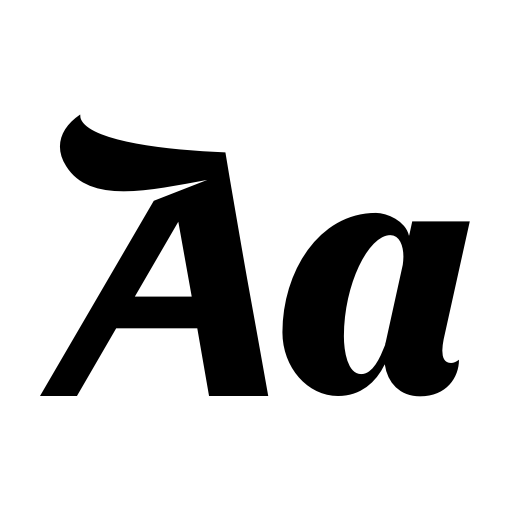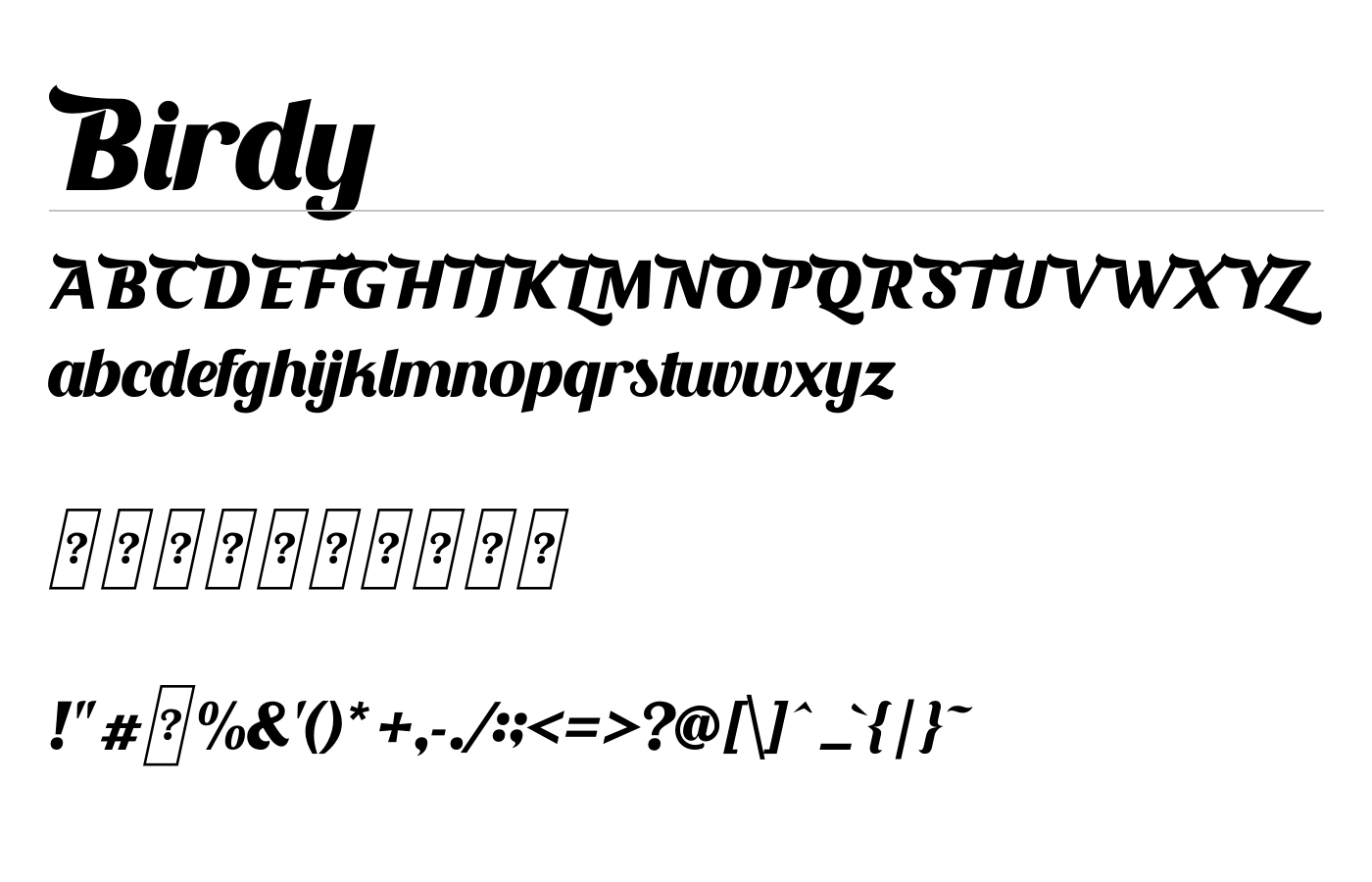
Birdy Font is a bold, serif typeface with a vintage, playful charm, featuring high contrast and unique terminal shapes that give it a stylish and dynamic look. Its sharp, slightly condensed letterforms and smooth curves make it perfect for eye-catching headlines, logos, and branding that aim to convey personality and creativity. Ideal for fashion, editorial, and retro-inspired designs, Birdy Font blends classic elegance with a modern twist.
Birdy Font
About Birdy Font